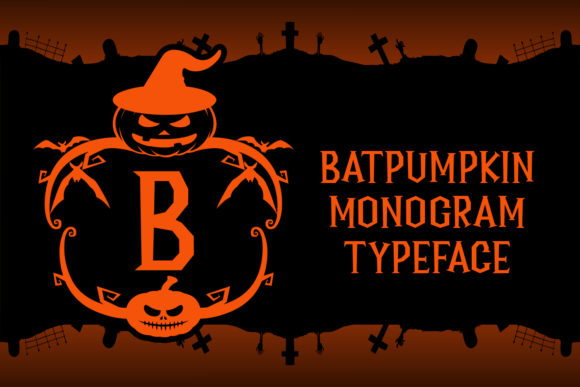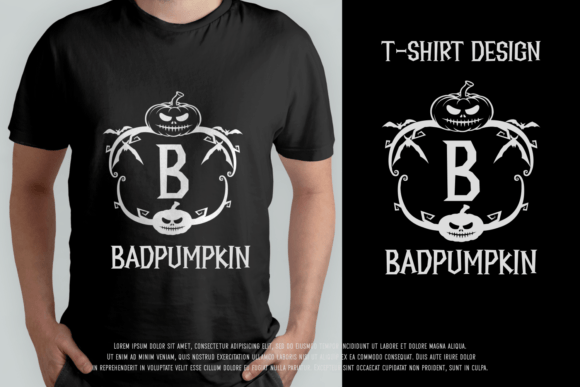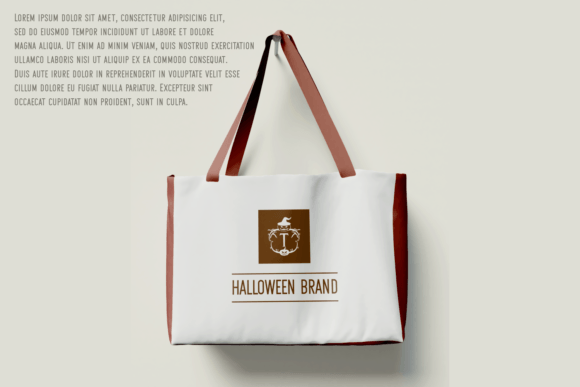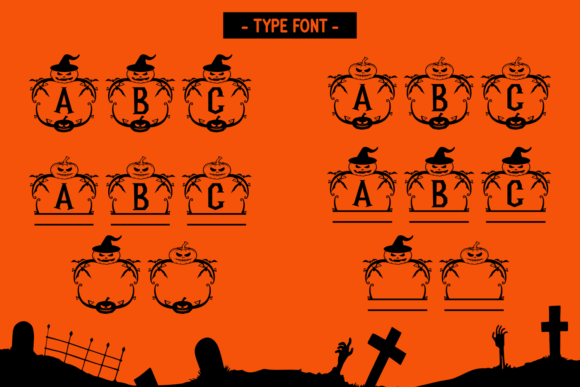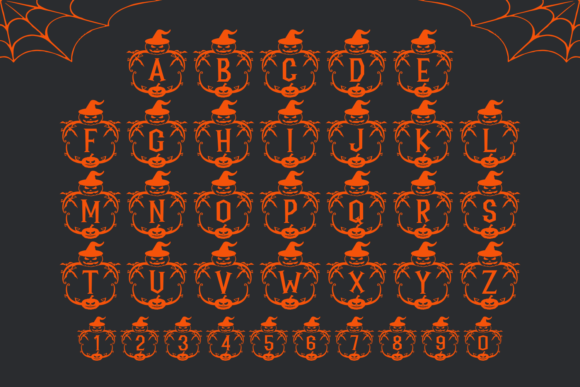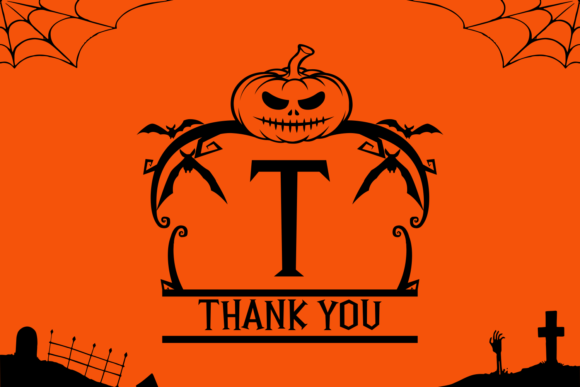
One essential tool in your Halloween design arsenal is the Batpumpkin Font – a playful, yet spine-tingling monogram font that’s guaranteed to add a touch of eerie elegance to any project. Whether you’re creating party invitations, labels, or creepy cake toppers, this font is the perfect addition to your spooky season toolkit. With its unique blend of whimsy and fright, the Batpumpkin Font is a valuable asset for designers looking to create truly unforgettable Halloween designs.
Batpumpkin Font Key Features
- Font Family: Batpumpkin Font is a unique, hand-drawn font family that includes multiple styles and weights.
- Font Size: Batpumpkin Font is available in 6 different font sizes, ranging from 12 to 72 points, to cater to various design requirements.
- Resolution: The font is designed at 300 DPI (dots per inch) for high-quality printing and digital use.
- Unique Characteristics: This font features intricate details, bold lines, and organic shapes, making it perfect for creating eye-catching headlines and titles.
- Font Styles: Batpumpkin Font includes multiple styles, such as Regular, Bold, Italic, and Outline, to provide flexibility in design and typography.
Review of Batpumpkin Font
Overall, I think Batpumpkin Font is a unique and quirky addition to any design project. ✨ Its playful, whimsical style makes it perfect for creating eye-catching graphics, social media posts, and even children’s book illustrations.
- ✨ Customizability: Batpumpkin Font comes with a wide range of styles and variations, allowing designers to create a cohesive look across different elements.
- ✨ Versatility: The font can be used in both digital and print media, making it a great option for designers working across multiple platforms.
- ✨ Unique aesthetic: The blend of gothic and pumpkin-inspired elements creates a one-of-a-kind design that will set your projects apart from the crowd.
However, I do have a few concerns about Batpumpkin Font. ⚠️ The font’s complexity can make it difficult to read for some users, particularly those with visual impairments. Additionally, the font’s bold and ornate style can be overwhelming in large quantities, making it essential to use it sparingly and thoughtfully.
Overall, I think Batpumpkin Font is a great addition to any designer’s toolkit. While it may have some limitations, its unique style and versatility make it a valuable asset for creating engaging and eye-catching designs.
For the most out of Batpumpkin Font, use it for:
- Spooky or Halloween-themed designs.
- Children’s party invitations or decorations.
- Unique and creative typography projects.
Remember to adjust the font size and style to suit your design needs and ensure readability.
Alternatives to Batpumpkin Font
Compared to Batpumpkin Font, Courgette Font has a more delicate and intricate design, making it suitable for smaller text sizes. While Batpumpkin Font has a more cartoonish feel, Courgette Font has a more organic and natural appearance.